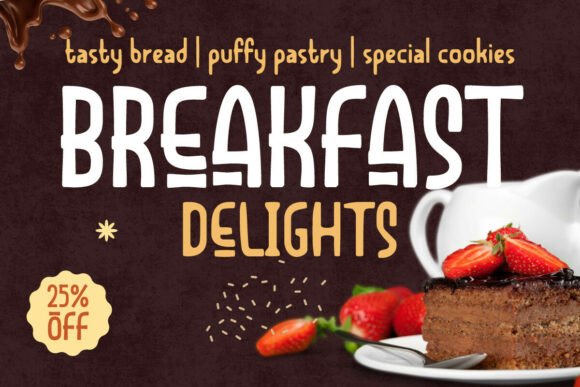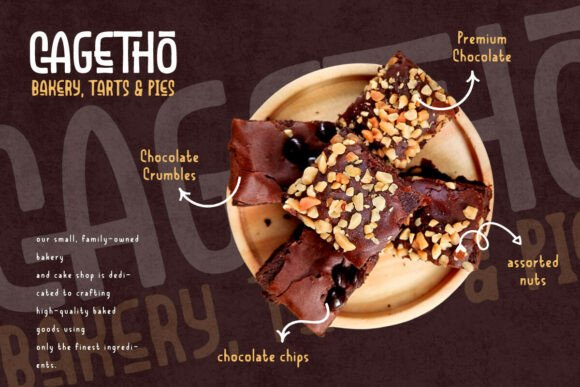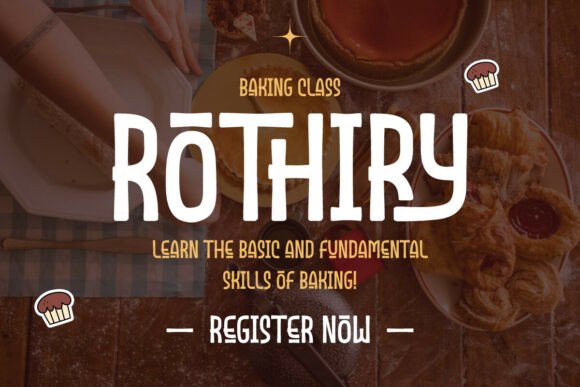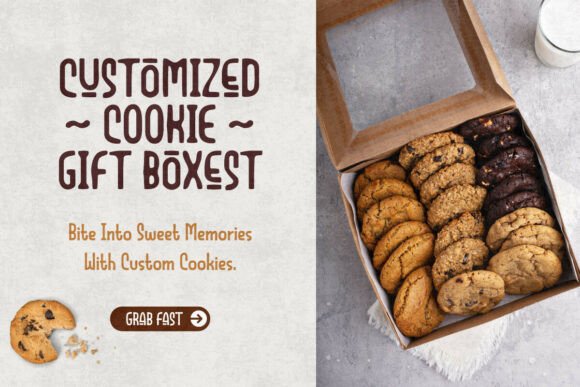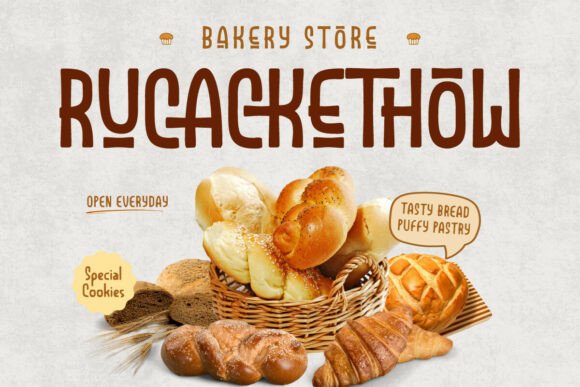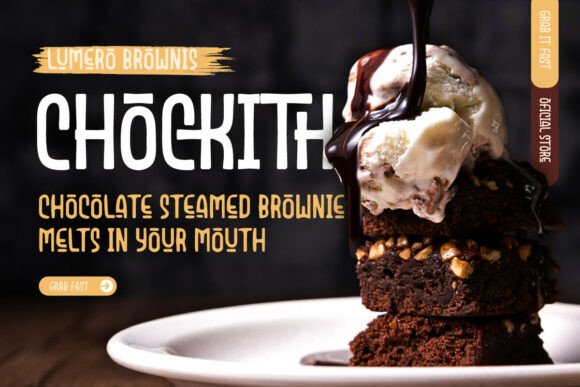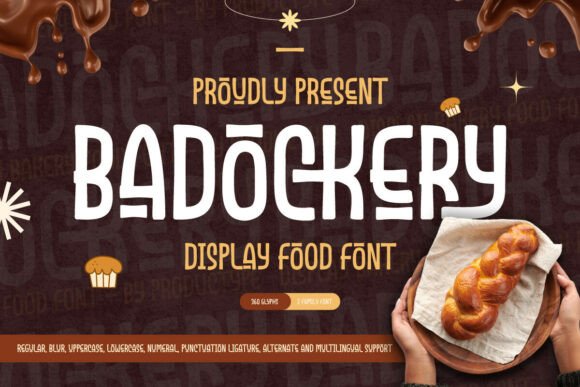
Introducing Badockery Font: The Sweetest Addition to Your Bakery Designs
Are you a designer or crafter looking for the perfect font to add a touch of warmth and personality to your bakery-themed designs? Look no further than Badockery Font! This sweet and savory display font is perfectly baked for bakery and food-themed designs, bringing a handcrafted charm that instantly evokes the warmth of fresh pastries, cozy cafes, and artisanal bakeries.
The Perfect Blend of Chunky and Soft
Badockery Font boasts chunky, soft letterforms that are both playful and inviting. Its unique style captures the joy of baking and the delight of indulgence, making your brand feel as inviting as a warm croissant on a chilly morning. Whether you’re designing labels for homemade treats or creating signage for a bakery storefront, Badockery delivers the perfect balance of boldness and approachability.
Ideal for Bakery Designs
Badockery Font is ideal for a variety of bakery designs, including:
• Cake shop logos: Add a touch of sweetness to your logo with Badockery’s playful and charming letterforms.
• Bread packaging: Make your bread packaging stand out with Badockery’s unique and eye-catching font.
• Dessert menus: Create a delightful dessert menu that will make your customers’ mouths water with Badockery’s friendly and flavorful font.
• Social media graphics for food brands: Add a pinch of personality to your social media graphics with Badockery’s chunky and soft letterforms.
What Makes Badockery Font Special?
So, what sets Badockery Font apart from other fonts? Here are a few features that make it a standout:
• Handcrafted charm: Badockery Font has a unique, handcrafted feel that gives your designs a personal touch.
• Playful personality: Badockery’s playful letterforms add a touch of whimsy and fun to your designs.
• Perfect balance of boldness and approachability: Badockery Font is bold enough to grab attention, yet approachable enough to feel friendly and inviting.
Tips for Using Badockery Font
Here are a few tips for getting the most out of Badockery Font:
• Pair with complementary fonts: Pair Badockery Font with complementary fonts to create a unique and visually appealing design.
• Experiment with colors: Try out different colors to find the perfect combination that matches your brand’s personality.
• Use for headlines and titles: Badockery Font is perfect for headlines and titles, adding a touch of personality and whimsy to your designs.
In conclusion, Badockery Font is the perfect addition to your bakery designs. With its chunky, soft letterforms and playful personality, this font brings a handcrafted charm that instantly evokes the warmth of fresh pastries, cozy cafes, and artisanal bakeries. Whether you’re a designer or crafter, Badockery Font is sure to add a friendly and flavorful touch to any visual. So why wait? Try Badockery Font today and make your bakery designs shine!
• Is Badockery Font suitable for body text?: Badockery Font is best suited for headlines and titles. For body text, we recommend using a clear and legible font.